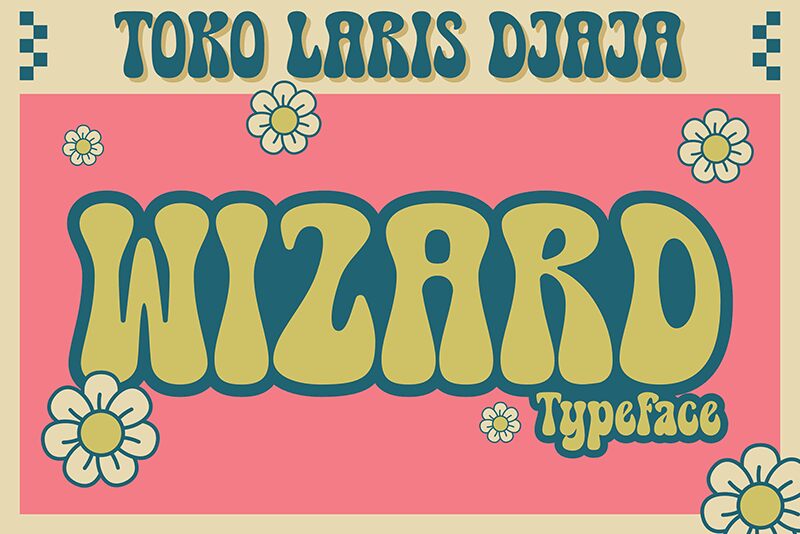
Wizard font by Toko Laris Djaja is a free bold groovy display font. It stands out with swollen, ink‑blot shapes and buttery edges that swell and taper like liquid. The rhythm feels wavy yet measured, giving lines a surreal, 60s poster pulse without turning messy. Thick silhouettes and generous counters keep letters legible even when blown up, making the wordmarks feel rich, gummy, and unmistakable.
Using Wizard, headlines and logos jump off the page-think festival posters, album art, psychedelic event branding, retro packaging, playful stickers, and bold social graphics. This free font loves big sizes and roomy margins; add a touch of tracking for air. For body copy, pair Wizard with a crisp, narrow sans to let its blobby curves do the showboating.